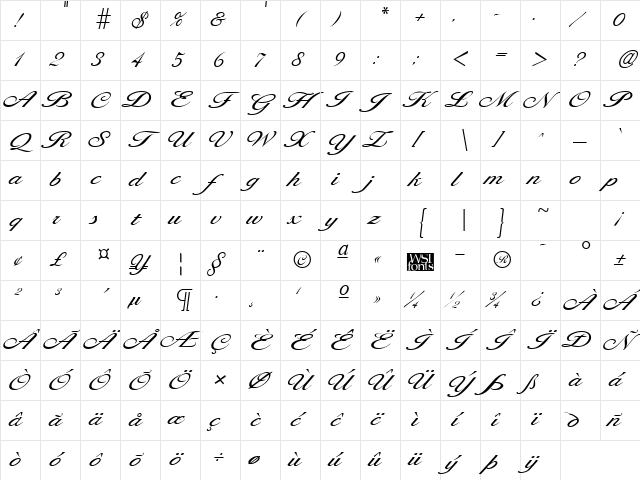
LarisimaLight Regular Free Font
LarisimaLight Regular
Design Context for LarisimaLight
LarisimaLight is a composed and adaptable typeface that performs quietly and consistently across a wide range of design contexts. Its slender proportions lend an understated elegance to any composition.